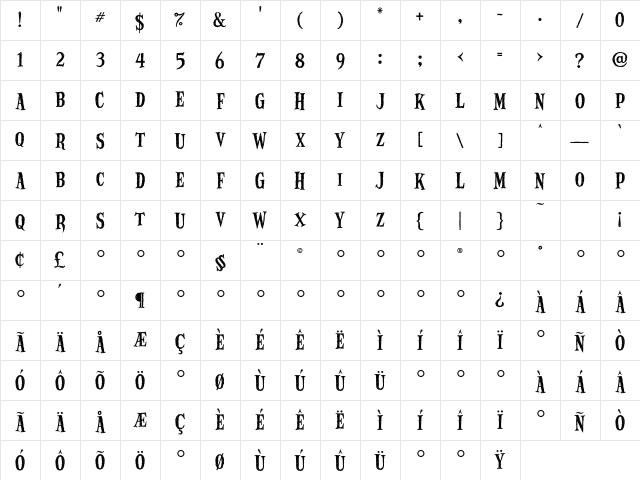
HouseofDeath Regular Free Font
HouseofDeath Regular
Design Context for HouseofDeath
HouseofDeath carries an unsettling edge - its distorted letterforms are built to unsettle, perfectly suited to horror, Halloween, and dark creative work.
Font Pairing: Pair with a clean neutral sans-serif for body copy to let HouseofDeath's character lead without overwhelming the composition.
Pro Tip: Use HouseofDeath at larger display sizes for maximum impact. Consider generous tracking to let the disturbing character of each letterform breathe.